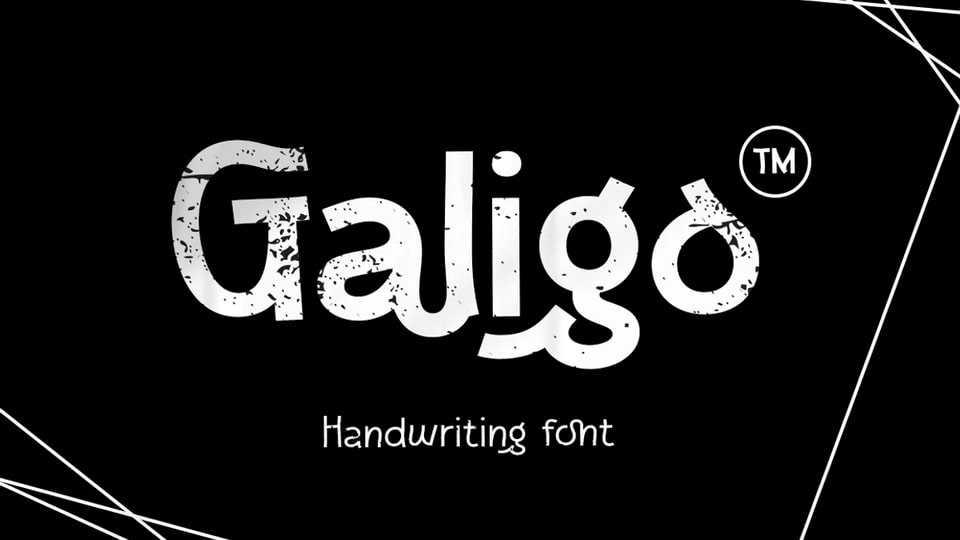
Download Galigo font, a captivating hand-drawn typeface that seamlessly blends artistic flair with versatile functionality. This unique typeface showcases a delightful variety with both light and regular forms.